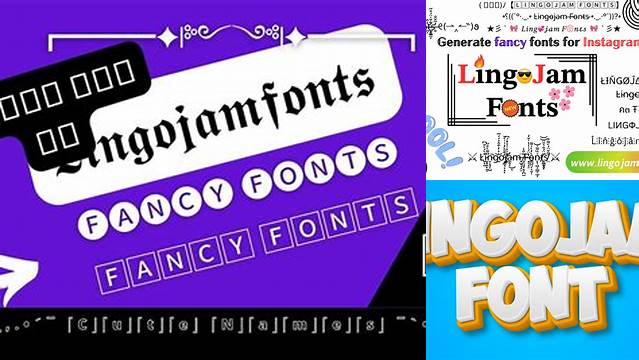
Lingojam: Cool Text Fonts - Copy & Paste Guide
Hey everyone, have you ever wanted to jazz up your social media posts, your profile names, or even just your everyday text messages with some seriously cool fonts? Well, Lingojam is here to save the day! This awesome online tool lets you transform your boring old text into something visually stunning, all with a simple copy and paste. Let's dive into how Lingojam at https://lingojam.com/ makes this super easy and explore some of the fantastic fonts you can use to level up your text game.
What is Lingojam and Why Should You Care?
Lingojam is a fantastic, user-friendly website that provides a super simple way to generate stylish and unique text fonts. It's like having a font generator right at your fingertips! You just type or paste your text, and Lingojam instantly converts it into a variety of cool fonts that you can then copy and use anywhere. It’s totally free to use, requires no downloads, and it works on any device with an internet connection. Basically, this is a game-changer, guys, especially if you're looking to stand out online. Whether you're a social media guru, a gamer, or just someone who loves expressing themselves creatively, Lingojam offers a fun way to add personality to your digital communication. Imagine your Instagram bio popping with an eye-catching font, or your usernames in games looking totally unique. It’s a simple yet powerful tool to spice things up.
The main reason you should care about Lingojam is that it gives you an edge in a world saturated with information. People are more likely to pay attention to something that looks different, and unique fonts grab that attention. Think about it: when scrolling through endless feeds, a creatively styled name or caption can instantly make you stop and take a second look. Plus, it’s incredibly easy to use. You don't need any technical skills or special software. The platform is designed for anyone to hop in and start creating cool text right away. The simplicity of it means you can experiment with different fonts until you find the perfect look, making the process both fun and effective. From casual chats with your friends to building your brand, Lingojam lets you express yourself in ways you never thought possible. So, why stick with the same old boring fonts when you have the tools to make your text pop?
Getting Started with Lingojam: A Step-by-Step Guide
Exploring Popular Font Styles on Lingojam
Alright, let's get into some of the amazing font styles that Lingojam offers. The variety is what makes this tool so awesome. Let’s check out some of the popular options, and I'll give you some ideas on where they work best. The first style we're going to look at is the bold font. This is a classic and versatile option that’s great for emphasizing important words or phrases. It’s perfect for headlines, titles, or any part of your text that you want to stand out. It’s simple, clean, and easy to read, so it’s a solid choice for almost any application. Think about using bold fonts for your Instagram bio to highlight your name or key details. It's simple and effective, and it gets the point across quickly. Another great option is the italic font. This is perfect for adding a touch of elegance and sophistication to your text. It can be used to emphasize a word or phrase, or to add a sense of flow and movement. Italic fonts are great for creating a sense of depth and are often used for quotes or phrases you want to highlight. Try using an italic font for your Twitter bio to show off your wit or your personal style.
Next, let’s talk about the cursive fonts. These are super stylish and add a handwritten feel to your text. They're perfect for creating a more personal or artistic look, and they're often used for things like usernames, logos, or captions on images. Be aware that while they look cool, they can sometimes be a bit harder to read, so use them sparingly. You don’t want to sacrifice readability for style. One great application for cursive fonts is on creative social media profiles or for a unique username in games. This can set you apart in the crowd, but make sure it’s still legible! Now, let’s move onto the symbol fonts. These are really fun and creative. These fonts replace your regular characters with symbols, like hearts, stars, and other cool graphics. They're perfect for adding a touch of whimsy or a playful vibe to your text. Symbol fonts are fantastic for creating unique profile names or adding special effects to your social media posts. Use these fonts to make your text pop. Combine these with emojis or other visual elements to make your content even more engaging. These can create a really unique look, but again, make sure they're not too confusing. Finally, the monospace fonts are pretty neat. These are fonts where each character takes up the same amount of horizontal space. This makes them perfect for programming or coding, but they can also add a retro, typewriter-like look to your text. They are awesome for creating a vintage effect or highlighting tech-related content. You could even use it for a themed Instagram post. With all of these styles, Lingojam gives you a massive range to play with, making it easy to find the right font for any occasion.
Creative Uses and Applications for Lingojam Fonts
Now that we’ve explored the amazing font styles offered by Lingojam, let's dive into the exciting ways you can actually use them! The possibilities are pretty endless, so I’ll give you some ideas. First up, social media is a prime place to show off your fancy new fonts. Imagine your Instagram bio with a unique font that instantly grabs attention. This is a quick and easy way to make your profile stand out from the crowd. Use bold fonts to highlight your name or key details, or try a cursive font to add a touch of elegance. On platforms like Twitter and Facebook, you can use stylish fonts for your posts, your profile names, and your captions. It's a simple way to add personality to your content and engage your audience. This is also great for creating eye-catching headlines, attracting more views, and making your content shareable. These applications are perfect for personal use but can also be a great tool for brands. Use fonts to create a unique brand image.
Another fun application is in online gaming. If you are a gamer, you can level up your game usernames, clan tags, and in-game chats using Lingojam fonts. Imagine the coolest font for your gaming username, your friends are going to be jealous. You can find the perfect style to match your game or your personality. Also, think about using different fonts in your gaming streams or videos. These can be perfect for making your channel stand out. Now, let's think about text messages and messaging apps. Instead of those boring, default fonts, you can use Lingojam to make your chats more engaging. You can use fancy fonts to emphasize specific words, add personality to your messages, or simply make them more fun. Surprise your friends with a unique font, making every conversation a bit more exciting. You might find you use a font to let your friends know you are texting them. If you use forums, online communities, and other online spaces, Lingojam is also very useful there. Use these fonts to create attention-grabbing posts, and to make your comments stand out from the crowd. This is a great way to start a discussion, or make your point in a way that will get noticed. Experiment with the various styles available to make sure the font matches the tone of your message. The main thing is to be creative and have fun. The most important part of using Lingojam is to express yourself, and there are many opportunities to do just that.
Tips and Tricks for Maximizing Your Lingojam Experience
To make the most of your Lingojam experience, here are some tips and tricks. The first is to always keep it readable. While it’s tempting to use the most extravagant fonts, always ensure your text is easy to read, especially if you're using it for important information like your name or contact details. A font that’s too fancy could lose its impact. Consider the platform you're using. Some social media platforms or apps may have limitations on the fonts they support. Also, check how the font looks on different devices to ensure it displays correctly across all platforms. This is an essential check! Another great tip is to play around with different styles and combinations to find the best fit for your needs. Don't be afraid to experiment! Try different fonts together to see what works. You can use a bold font for the main text and an italic font for a quote or a detail. Lingojam makes it easy to try various combinations so you can create the perfect style. You will be able to create a unique look that reflects your personality and brand. Be aware of copyright issues. When using fonts for commercial purposes, make sure you understand the licensing terms. Some fonts may require a commercial license, so be sure you understand this if you are using Lingojam for business purposes.
Conclusion: Why Lingojam is a Must-Try Tool
So, there you have it! Lingojam is an incredible tool that makes it super easy to spice up your text. It’s simple, fun, and completely free to use, and the possibilities are endless. From social media to gaming, from personal messages to professional branding, Lingojam gives you the power to express yourself in exciting new ways. It’s easy to use, and there's no need for any special technical skills. Just copy and paste your text, and instantly transform it into a wide range of cool fonts. Remember to always check readability, experiment with combinations, and use the right font for the right context. Now that you know how Lingojam works, you can go forth and start creating stylish and engaging content. It's time to unleash your creativity and take your text to the next level. So, head over to https://lingojam.com/ and start creating amazing text today. Trust me, you will love it! Happy fonting, everyone!